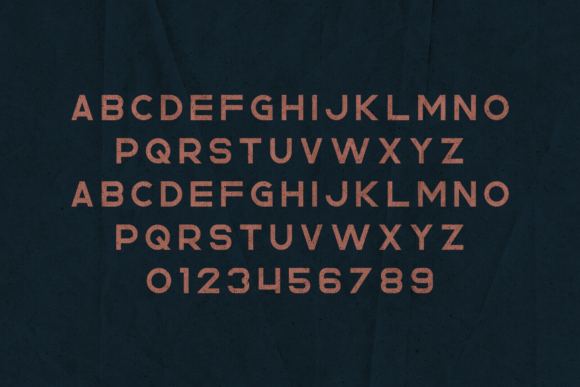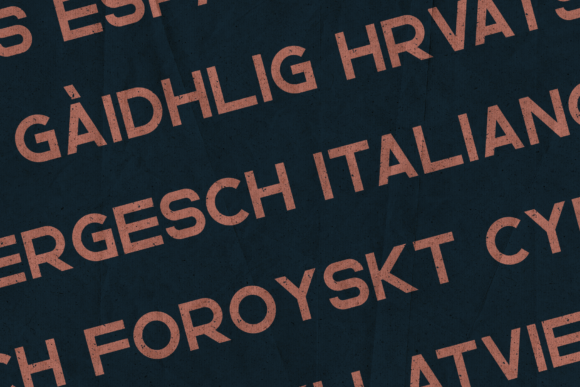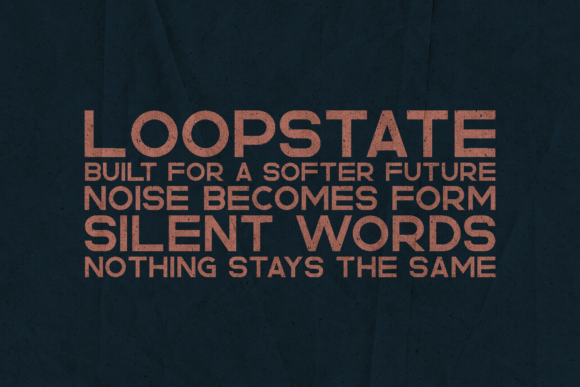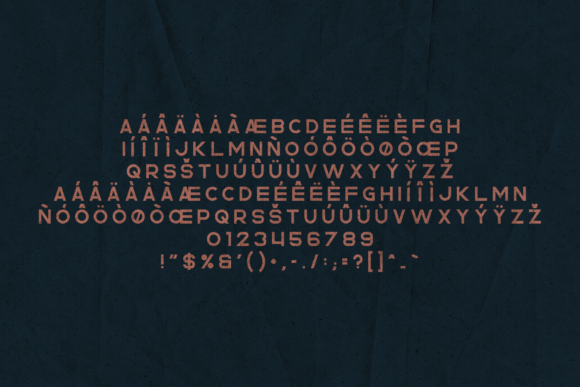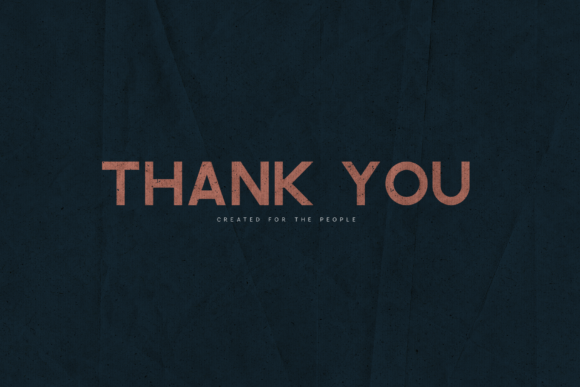
Introduction to Rhino Rough Font
Remember the moment when you’re browsing through a vintage flea market, and you stumble upon an old, distressed poster that screams with raw energy? That’s the kind of visual impact the Rhino Rough Font is designed to deliver. This bold, powerful display font is not just another design resource – it’s a statement piece that can elevate your creative project to the next level.
As a designer, you’re always on the lookout for high-quality fonts that can make your work stand out. And Rhino Rough Font is the perfect addition to your design arsenal. With its rugged texture and industrial-inspired design, it’s ideal for projects that need a bold and expressive voice. Whether you’re working on a branding project, creating social media graphics, or designing album covers, this font is sure to make a lasting impression.
Key Features of Rhino Rough Font
- High-Quality Design Resource: The Rhino Rough Font is a premium font designed for various creative projects, offering a unique and stylish look.
- Unique Characteristics: The Rhino Rough Font features a unique, hand-drawn style with subtle texture and imperfections, giving it a distinctive look that sets it apart from other fonts.
- Perfect for Creative Projects: This font is ideal for various creative projects, including graphic design, typography, and digital art, due to its versatility and high-quality design.
Honest Review: Rhino Rough Font
As a designer, I’m always on the lookout for high-quality design resources to elevate my creative projects. The Rhino Rough Font is a great addition to any designer’s toolkit.
Here’s what I love about this font:
- ✨ Unique texture and imperfections give it a raw, handmade feel
- ✨ Perfect for adding a touch of personality to designs, such as logos, branding, and packaging
- ⚠️ Some letters may require slight adjustments for optimal legibility
- ⚠️ Limited font styles and weights may not be suitable for complex typography projects
Overall, I’m really impressed with the Rhino Rough Font. Its unique texture and versatility make it a great addition to any designer’s library. With a few minor tweaks, it’s ready to elevate your creative projects to the next level.
Rhino Rough Font
Tips for Getting the Most Out of Rhino Rough Font
Experiment with different font sizes and styles to create unique visual effects. Combine Rhino Rough Font with other design elements to add depth and interest to your creative project. Use this high quality design resource to create professional-looking designs that stand out from the crowd.
Rhino Rough Font is perfect for creating designs for social media, advertising, and branding. Its unique style and high quality make it a valuable asset for any designer working on a creative project.